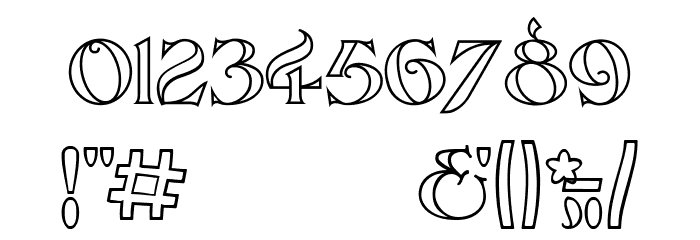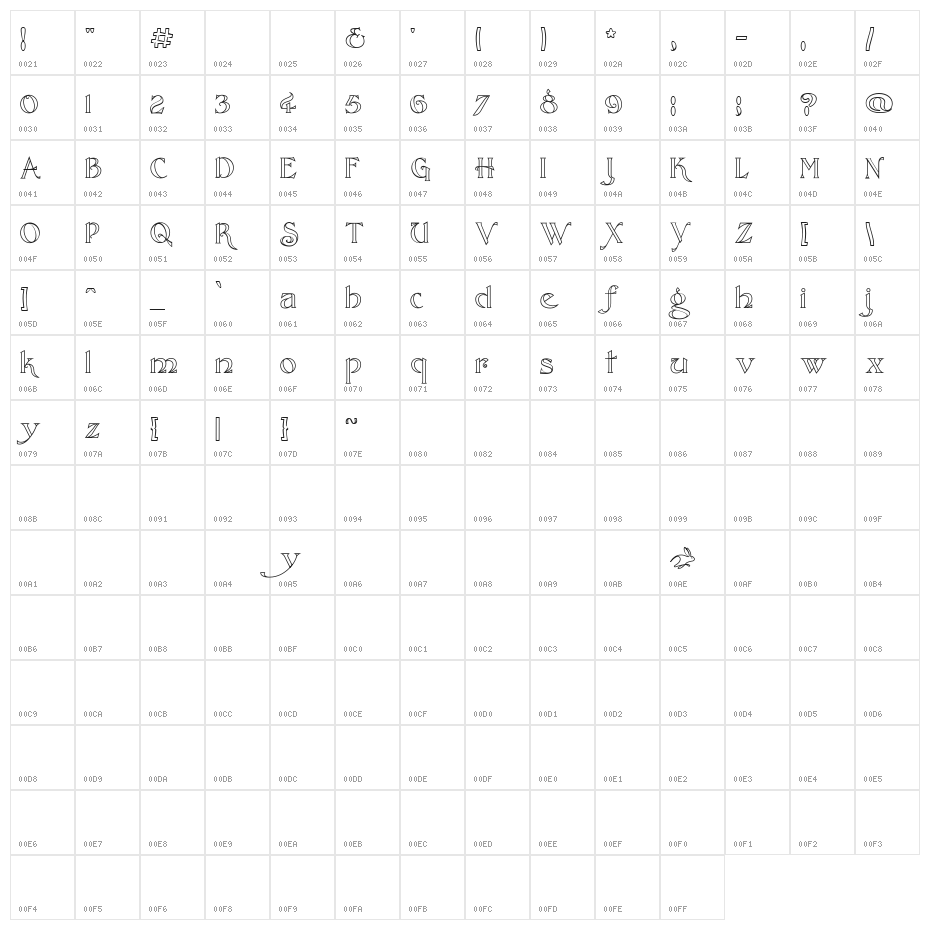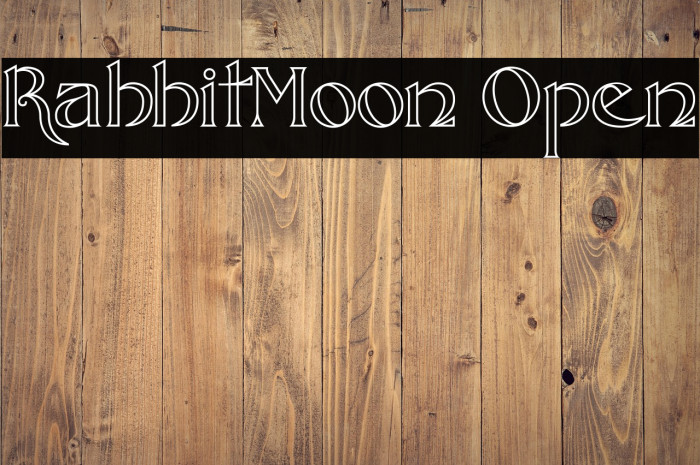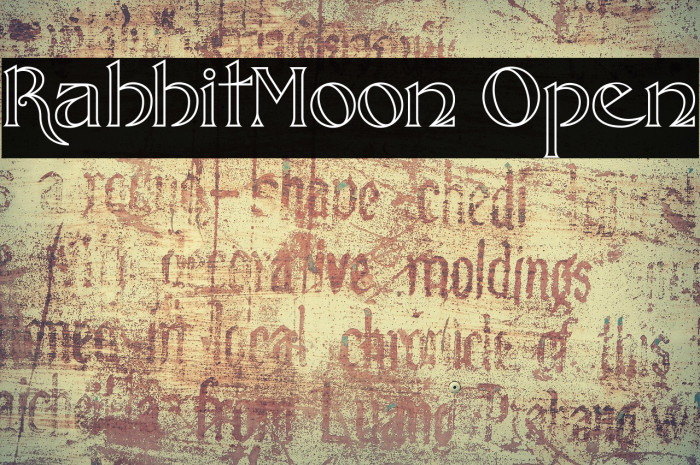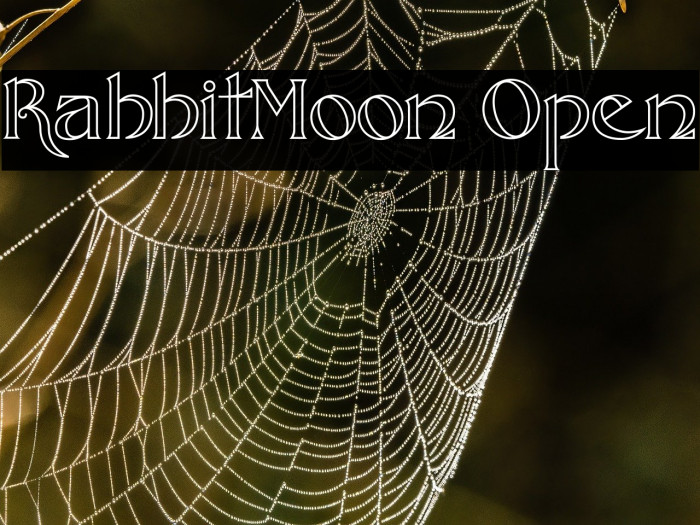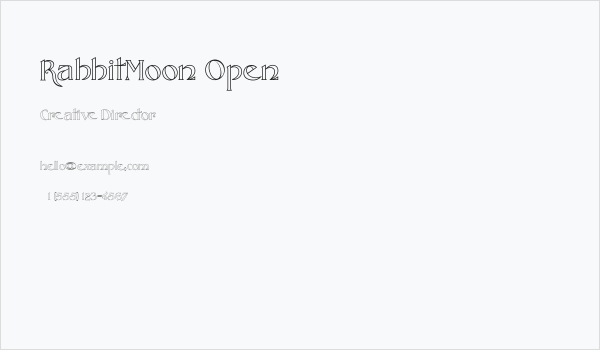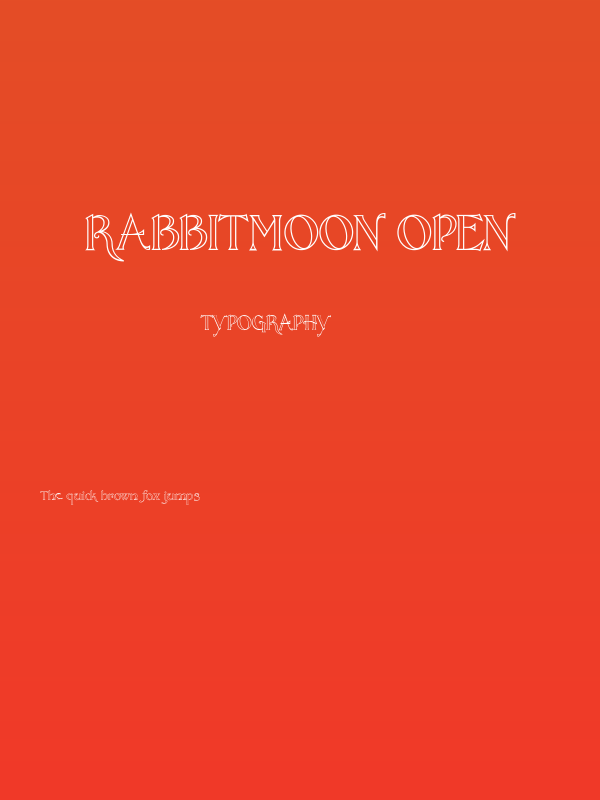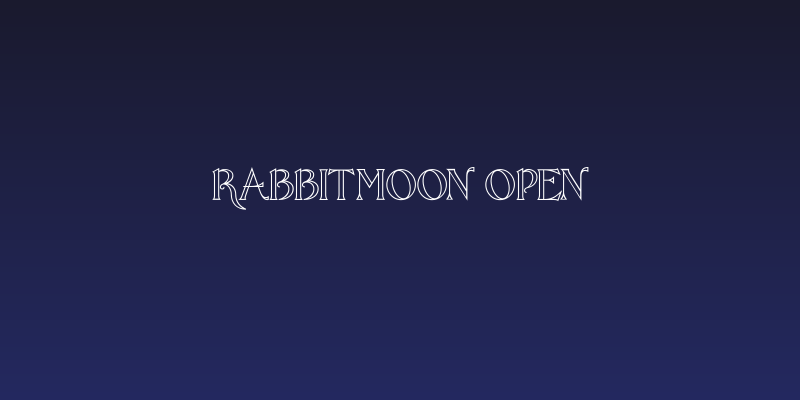
RabbitMoon Open Font
RabbitMoon Open Description
This font features an intricate and decorative design with a unique blend of sharp angles and smooth curves. The uppercase letters exhibit a bold presence with distinct geometric elements, while the lowercase letters maintain a cohesive style with elegant flourishes. The numerals are equally stylized, offering a consistent aesthetic throughout. Special characters are creatively designed, adding to the font's artistic appeal. This typeface is perfect for projects that require a touch of sophistication and creativity.